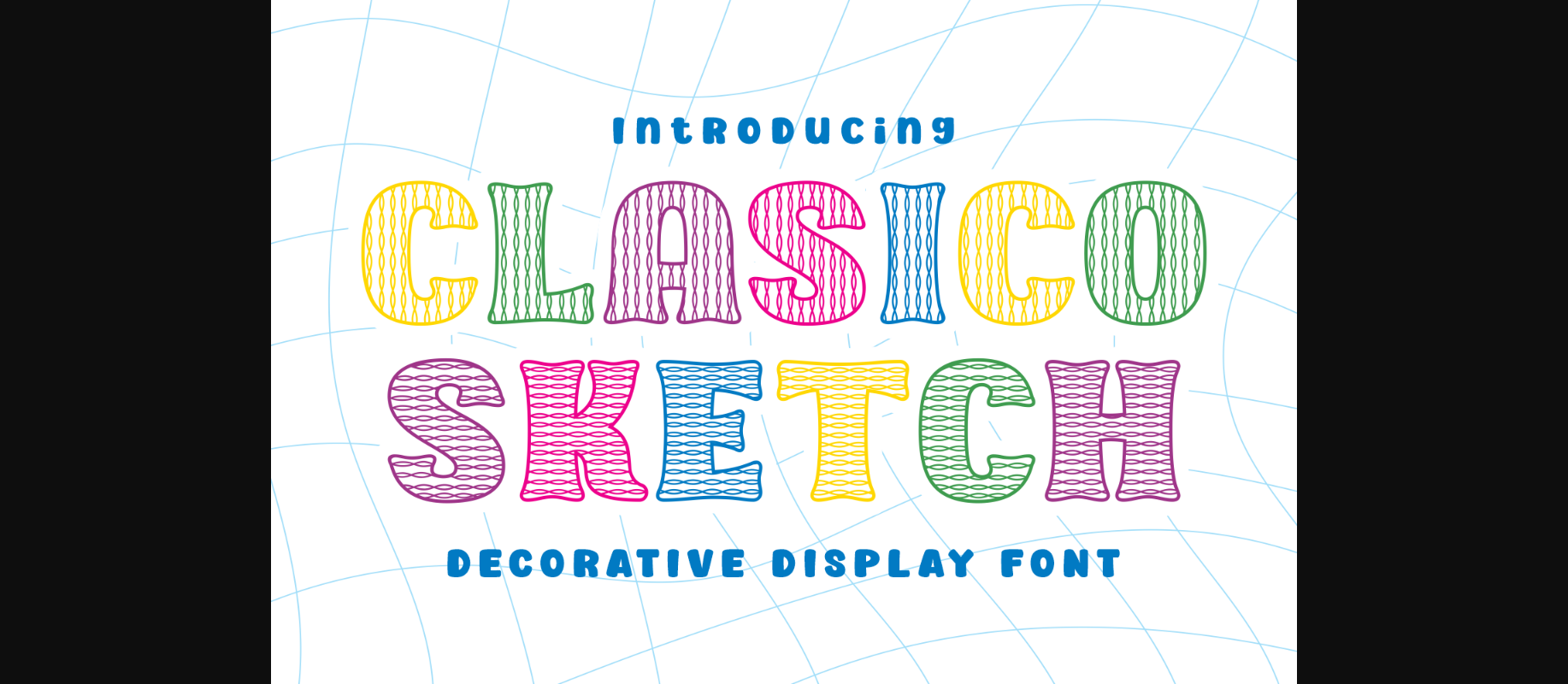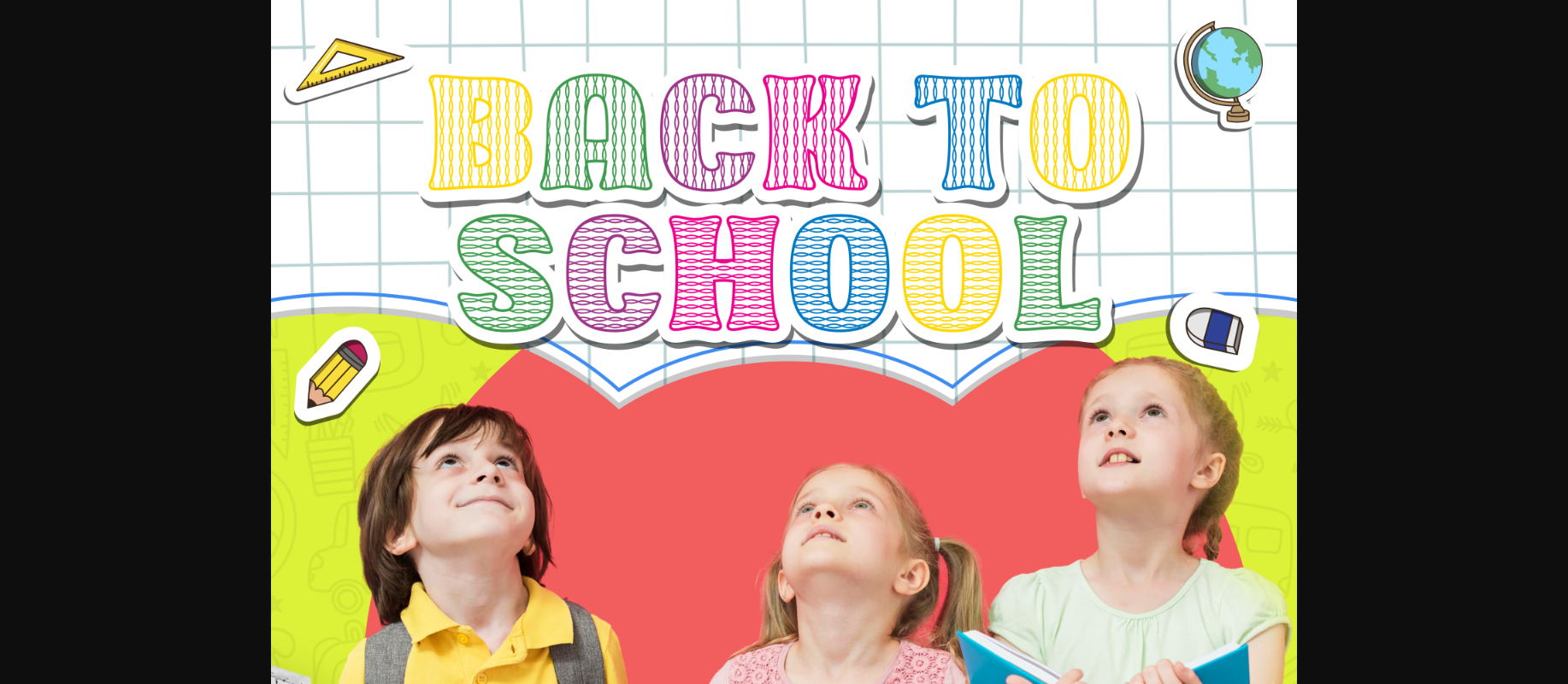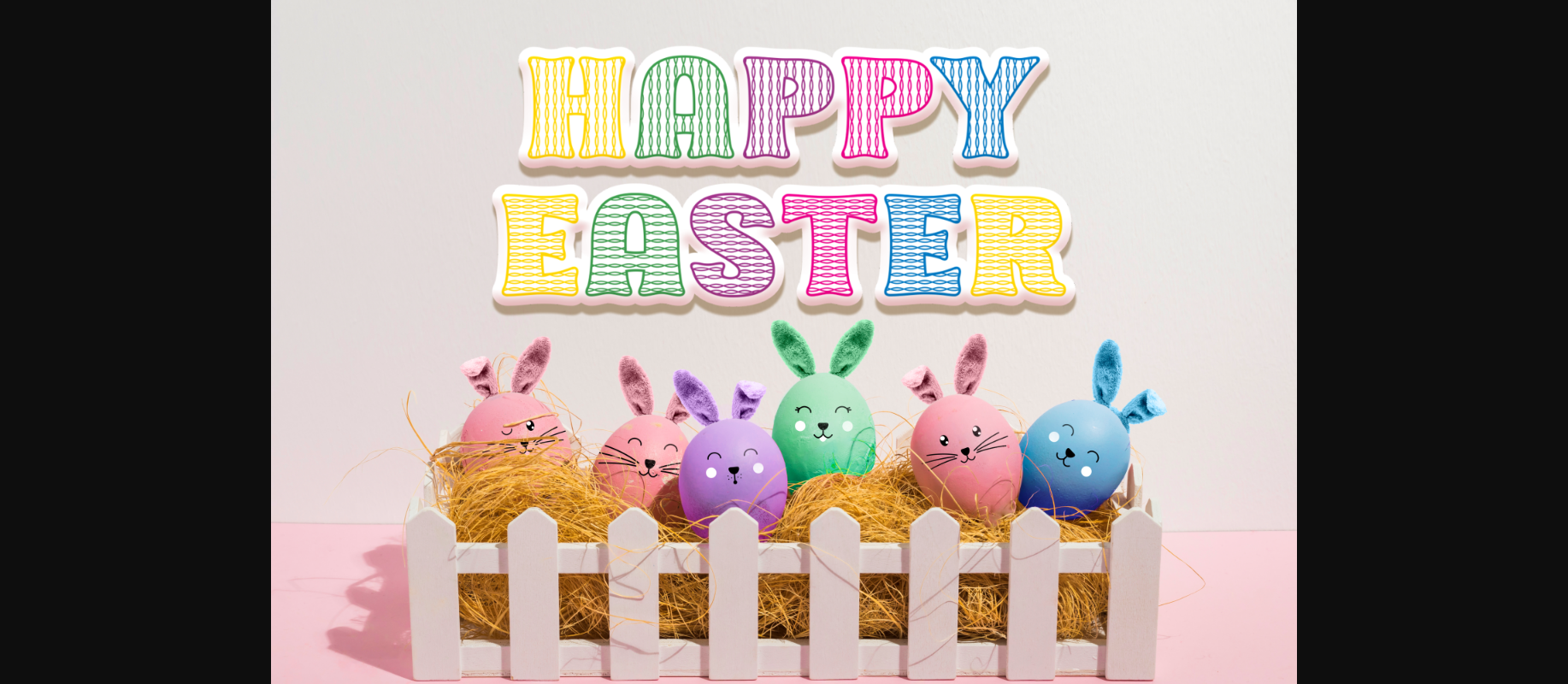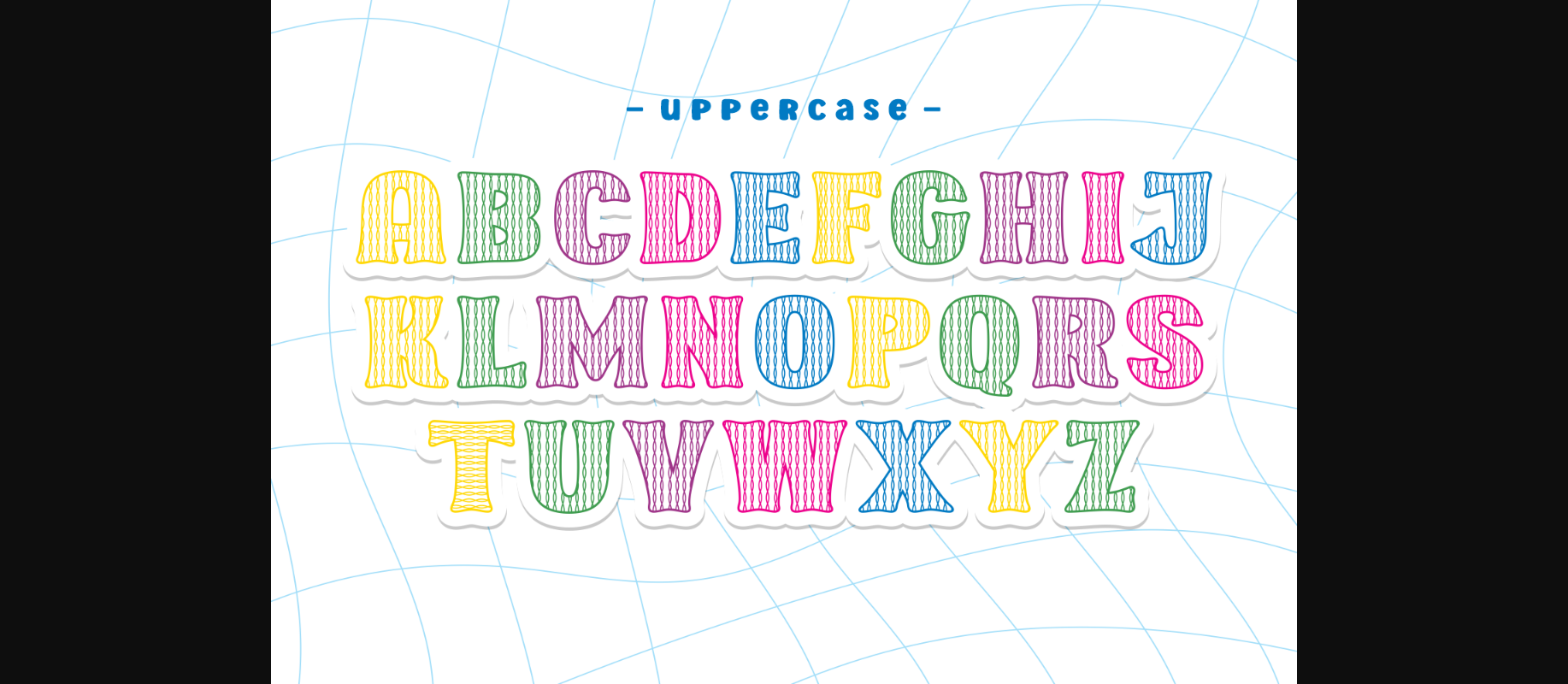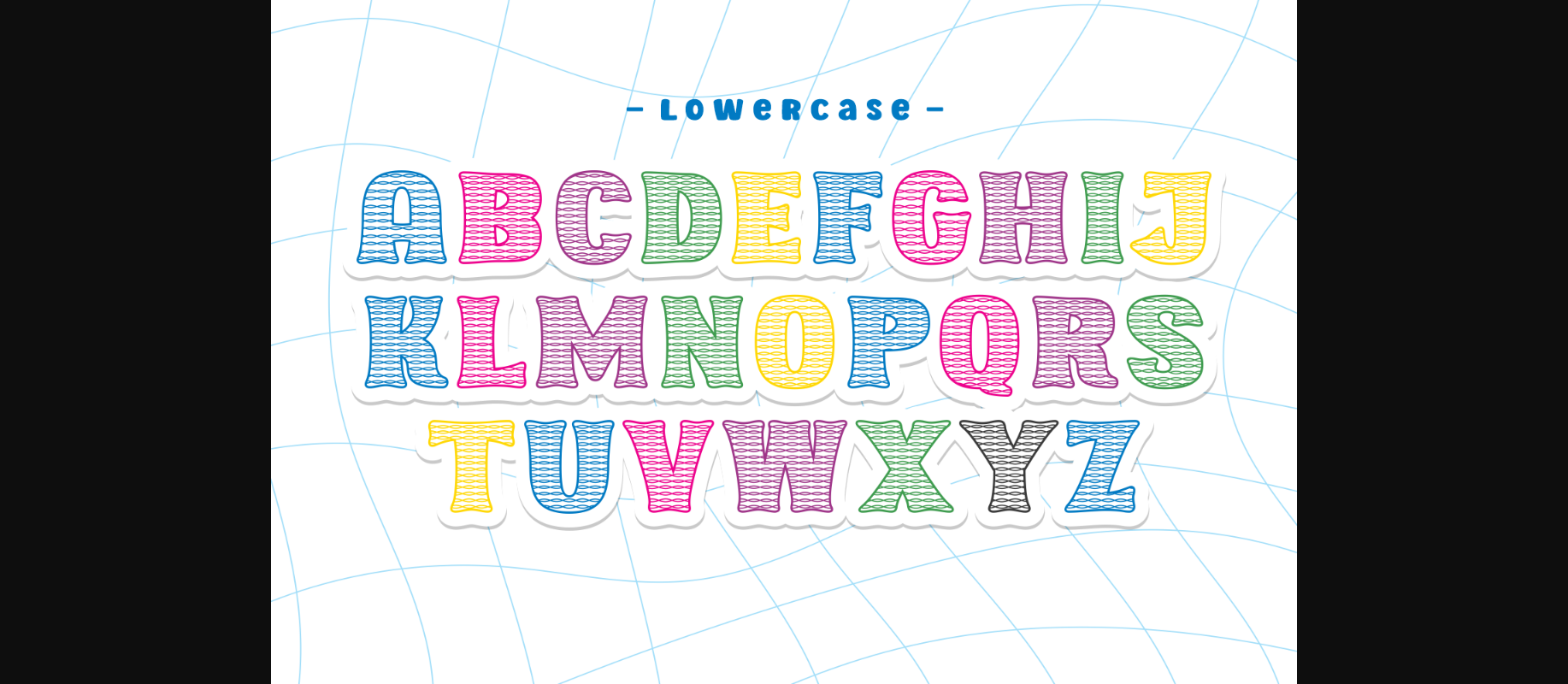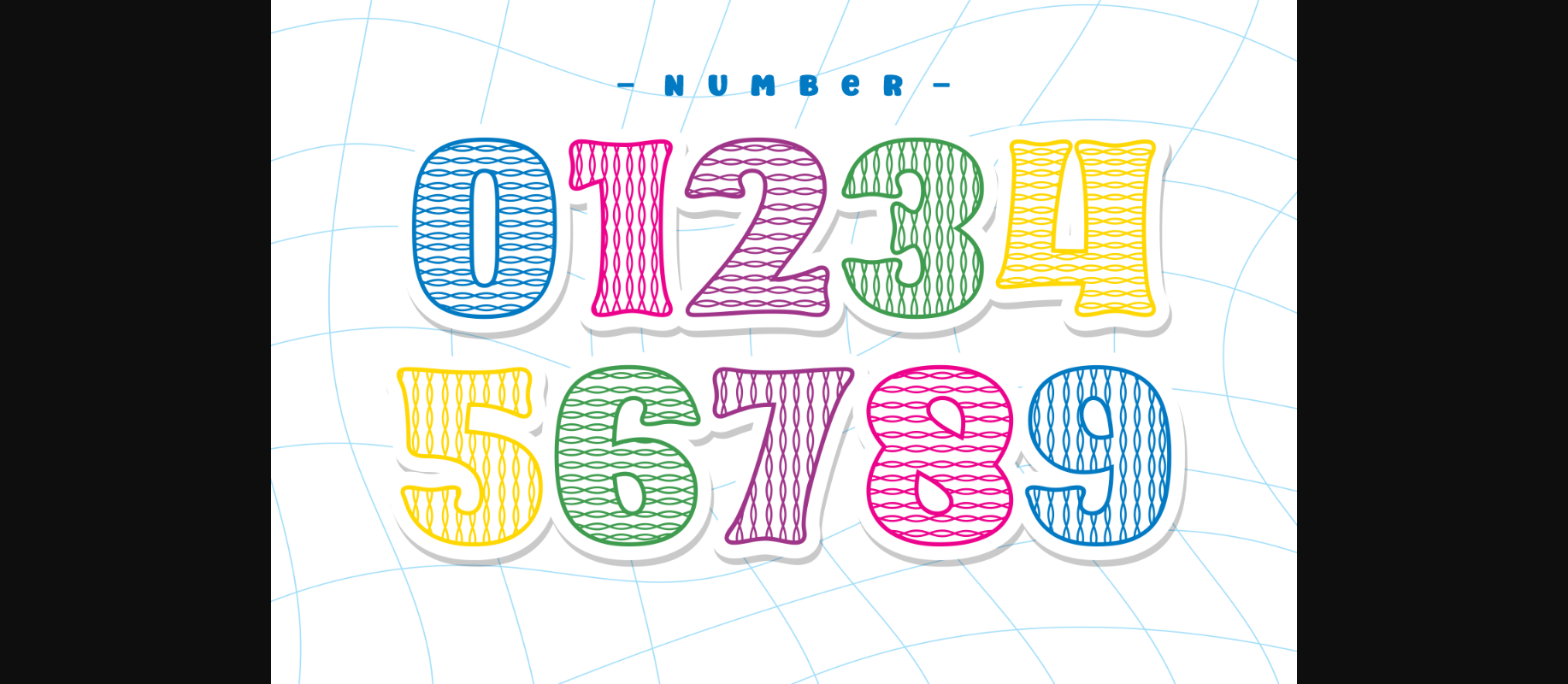
Decorative Fonts Clasico Sketch Font 0 202 FacebookTwitterPinterestWhatsApp 1 of 8 ... Clasico Sketch Font Poster 2... Clasico Sketch Font Poster 3... Clasico Sketch Font Poster 4... Clasico Sketch Font Poster 5... Clasico Sketch Font Poster 6... Clasico Sketch Font Poster 7... Clasico Sketch Font Poster 8... About Clasico Sketch Font Clasico Sketch is a cute and quirky decorative display font. It will add an incredibly joyful touch to your designs. Add this beautiful display font to each of your creative ideas and notice how it makes them stand out! DOWNLOAD NOW